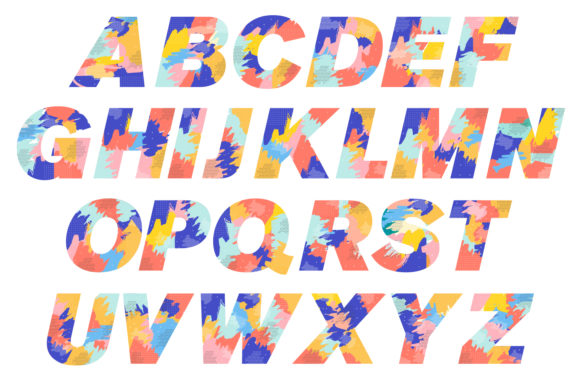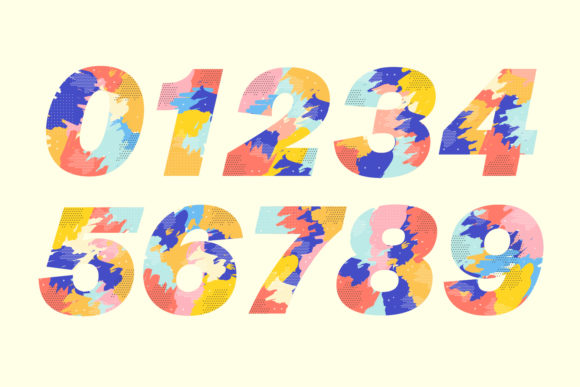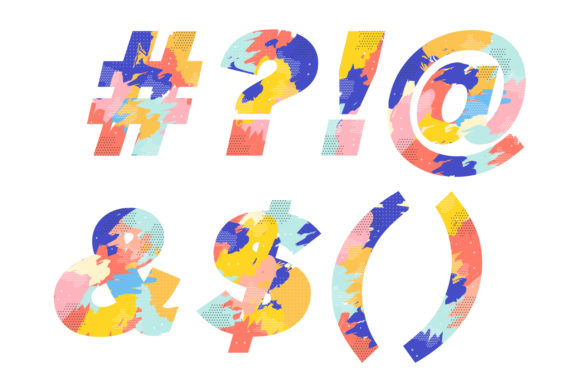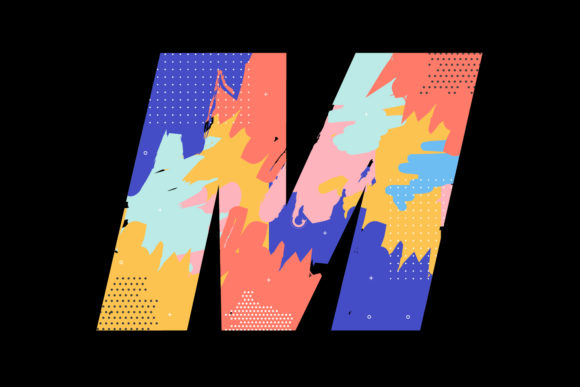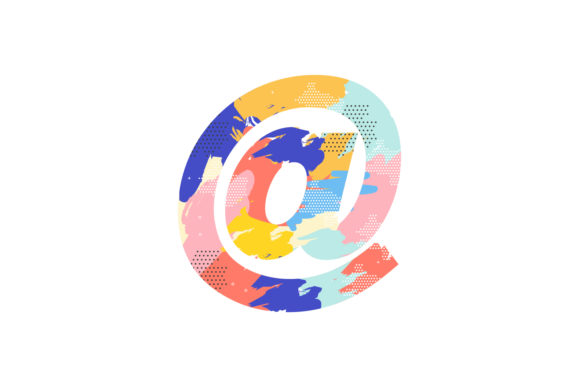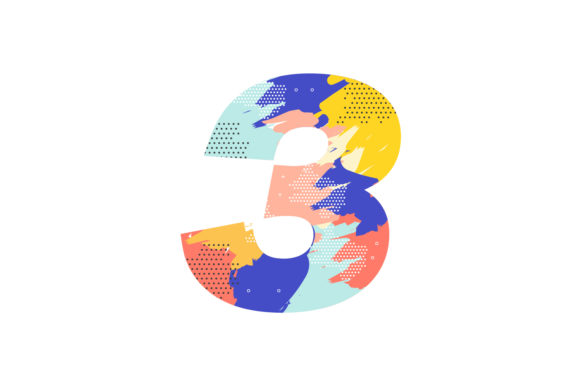
Unlock Your Design Potential with the Iris Font
Have you ever been stuck in a creative rut, scrolling through design inspiration boards, and feeling like something’s missing? You know the feeling – it’s like your designs are crying out for a pop of color, a dash of whimsy, and a whole lot of personality. That’s where the Iris Font comes in – a gorgeous, vibrant color font that’s ready to ignite your creativity and breathe fresh life into your designs.
| 👤 Author | yai.salinas |
The Iris Font is a versatile, playful typeface that’s perfect for designers looking to add a fun, modern twist to their work. With its unique color capabilities and compatibility with popular design software, this font is an absolute game-changer for anyone looking to elevate their design game. Whether you’re a seasoned pro or just starting out, the Iris Font is an essential tool that’s sure to bring a smile to your face and a spring to your step.
Iris Font Key Features
- Font Family: Iris is a sans-serif font family designed by Dutch type foundry FontFont.
- Resolution: Optimized for use at high resolutions, making it suitable for both print and digital applications.
- Unique Characteristics: Iris features a unique blend of geometric and organic shapes, resulting in a clean and modern aesthetic.
Iris Font Review
I recently had the chance to work with the Iris Font, and I must say it’s been an interesting experience.
Here’s what works well: ✨ The font has a beautiful, elegant feel to it. The rounded edges and smooth curves make it perfect for design projects that require a touch of sophistication. ✨ It’s also highly customizable, with a wide range of weights and styles to choose from. This makes it easy to adapt to different design needs. ✨ Another plus is its excellent legibility, making it a great choice for body text.
However, there are some limitations: ⚠️ The font can be a bit too playful for more formal or professional projects. It may not be the best choice for designs that require a more serious tone. ⚠️ Additionally, some of the weights can be a bit too thin, which may make them difficult to read in smaller sizes.
Overall, I’d say the Iris Font is a solid choice for design projects that require a touch of elegance and sophistication. While it may not be the best fit for every project, it’s definitely worth considering for designs that need a bit of flair.
- Beautiful, elegant feel
- Excellent legibility
- Wide range of weights and styles
- May not be suitable for formal or professional projects
- Some weights may be too thin for smaller sizes
To get the most out of the Iris font, use it for:
- Special occasion cards and gifts.
- Editorial and magazine design.
The Iris font is commonly used for:
- Formal and elegant designs.
- High-end branding and packaging.
- Wedding and event design.